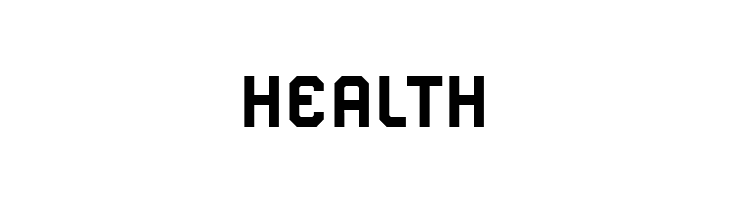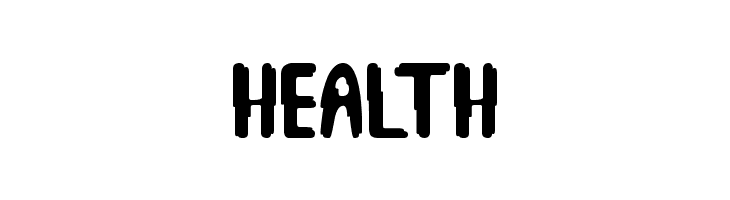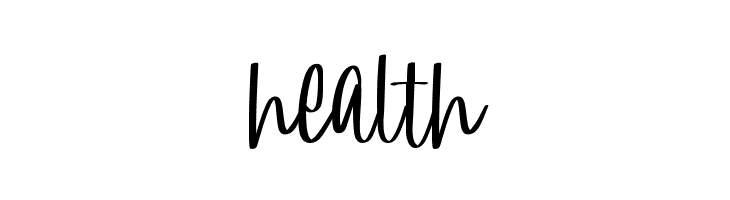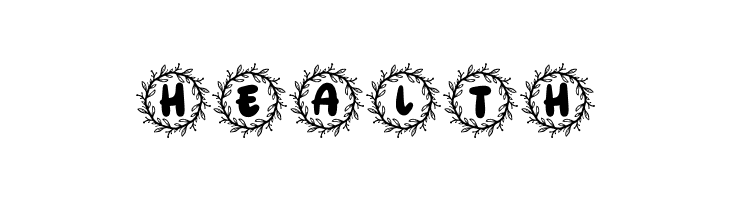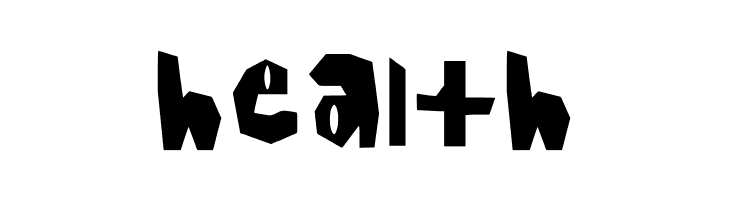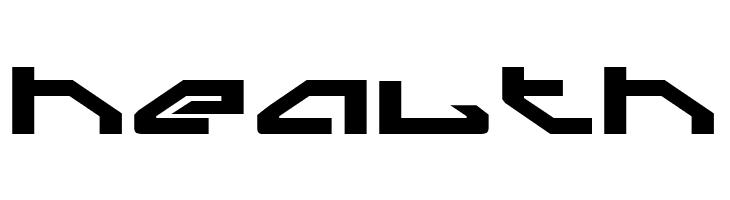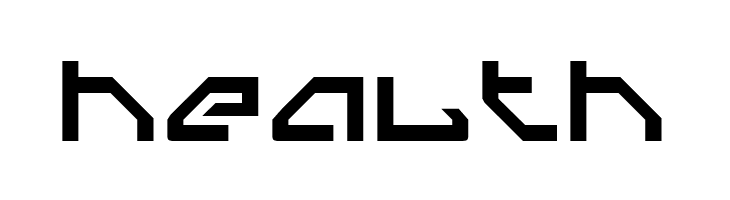
A bold, split-effect sans-serif font ideal for modern, eye-catching designs.
A bold, jagged font with a spooky, playful style.
A bold, playful font with a spooky, hand-drawn style.
A bold, geometric font with a strong, athletic style.
A bold, decorative font with characters encased in thorny wreaths.
A playful, handwritten script font with bold, dynamic strokes.
A futuristic, angular font with sharp edges and geometric shapes.
A bold, expanded, futuristic font with geometric design.
A bold, expanded, and italic font with a futuristic and dynamic style.